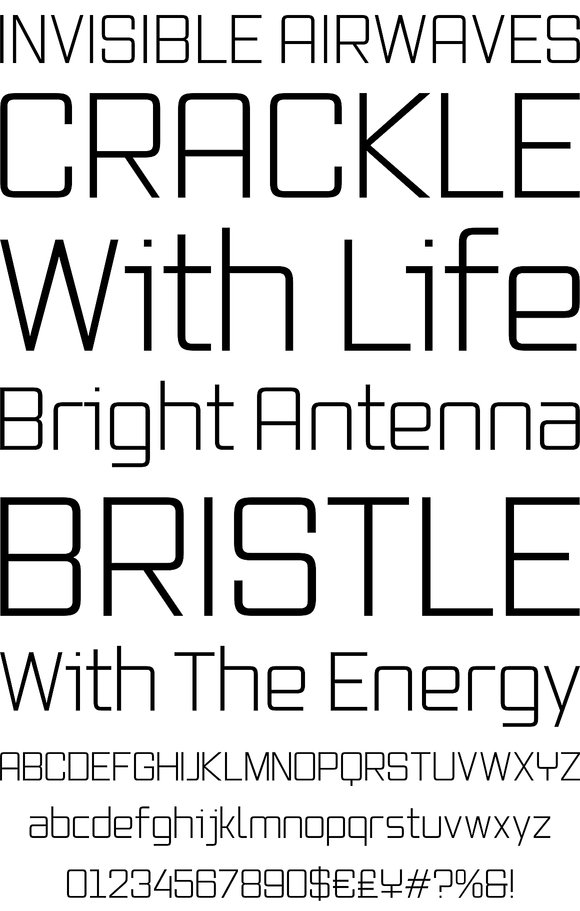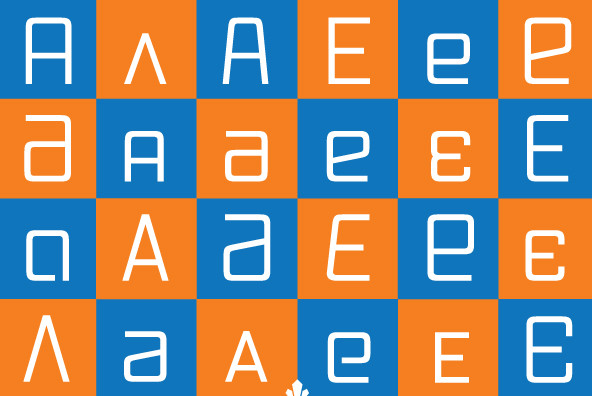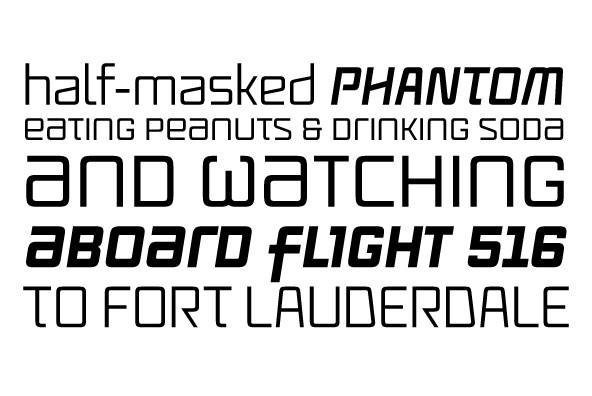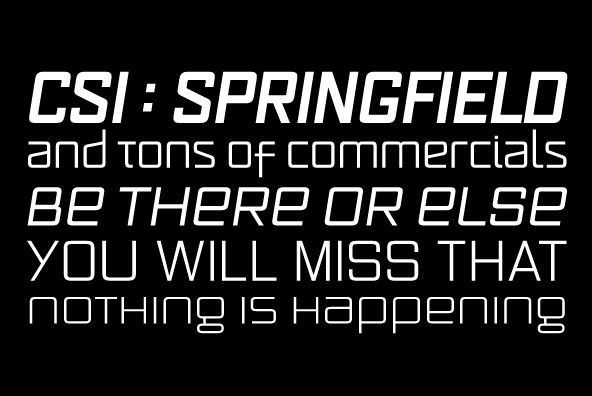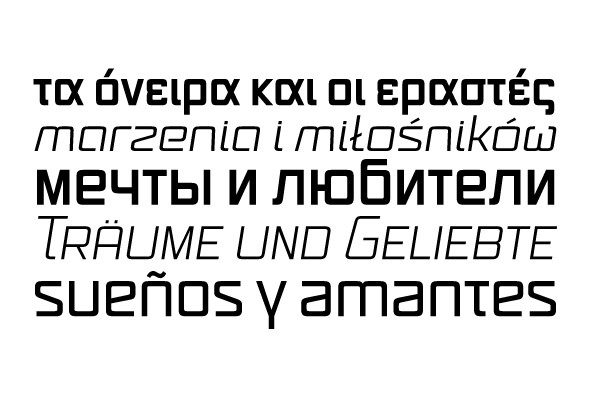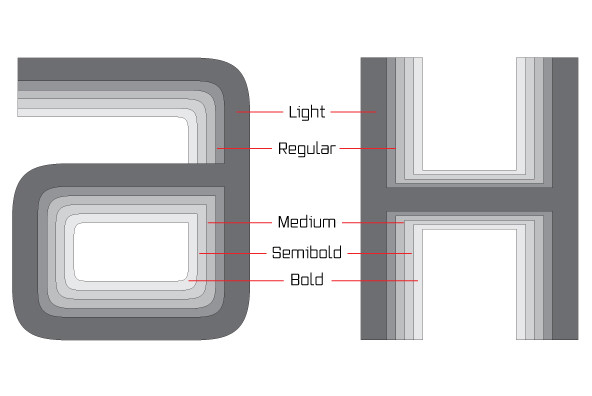
The original brief for Vox was a extensive monoline typeface that can be both precise and friendly, yet contain enough choice of seamlessly interchangeable variants for the user to be able to completely transform the personality of the typeface depending on the application Basically, a sans serif with applications that range from clean and transparent information relay to sleek and angular branding When the first version of Vox was released in 2007, it became an instant hit with interface designers, product packagers, sports channels, transport engineers and electronics manufacturers This new version is the expanded treatment, which is even more dedicated to the original idea of abundant application flexibility The family was expanded to five weights and two widths, with corresponding italics, for a total of 20 fonts Each font contains 1240 glyphs Localization includes Cyrillic and Greek, as well as extended Latin language support Built-in OpenType features include small caps, caps to small caps, four completely interchangeable sytlistic alternates sets, automatic fractions, six types of figures, ordinals, and meticulous class-based kerning This kind of typeface malleability is not an easy thing to come by these days For additional versatility, take a look at Vox Round, the softer, but just as extensive, counterpart to this family.